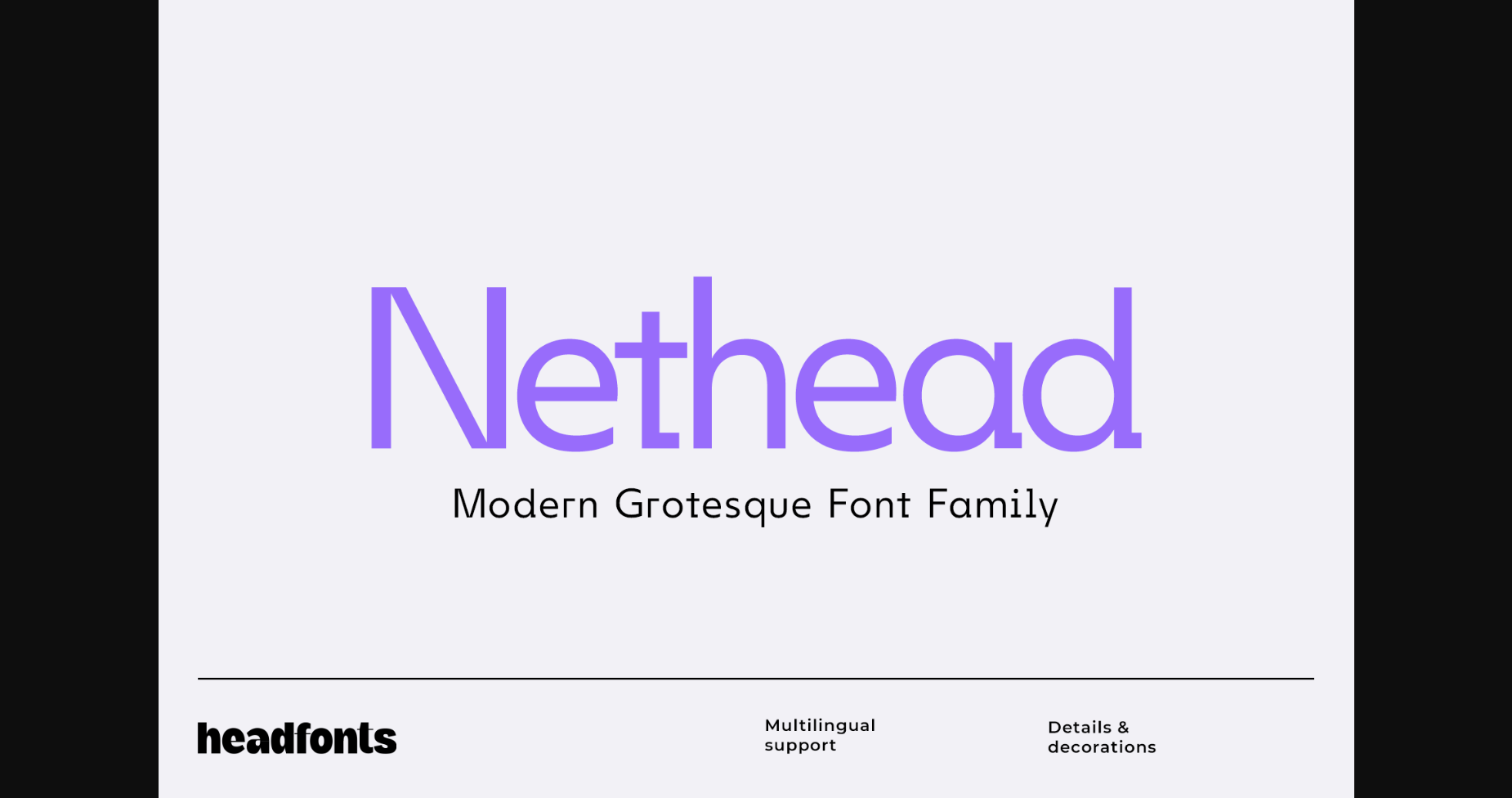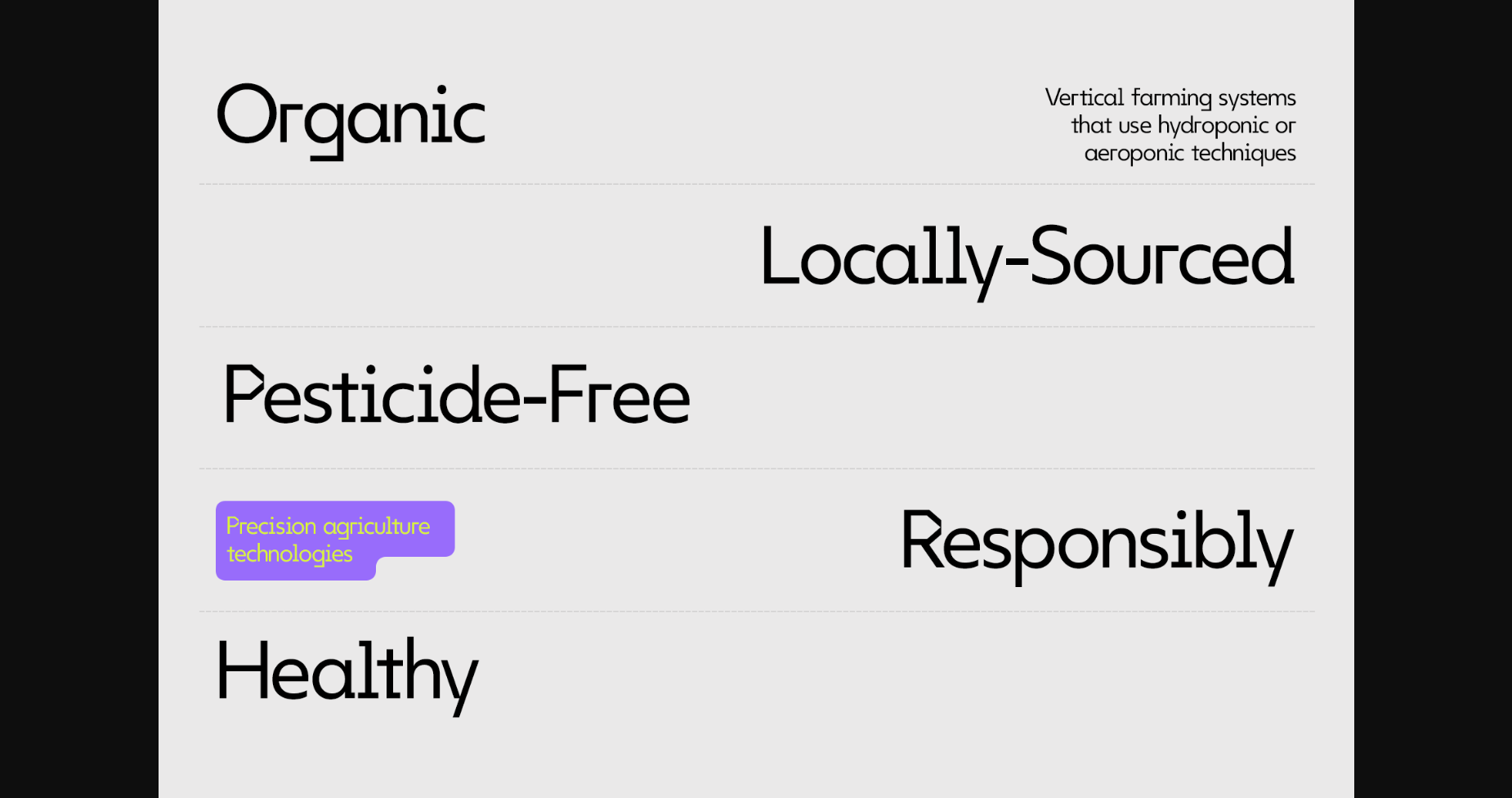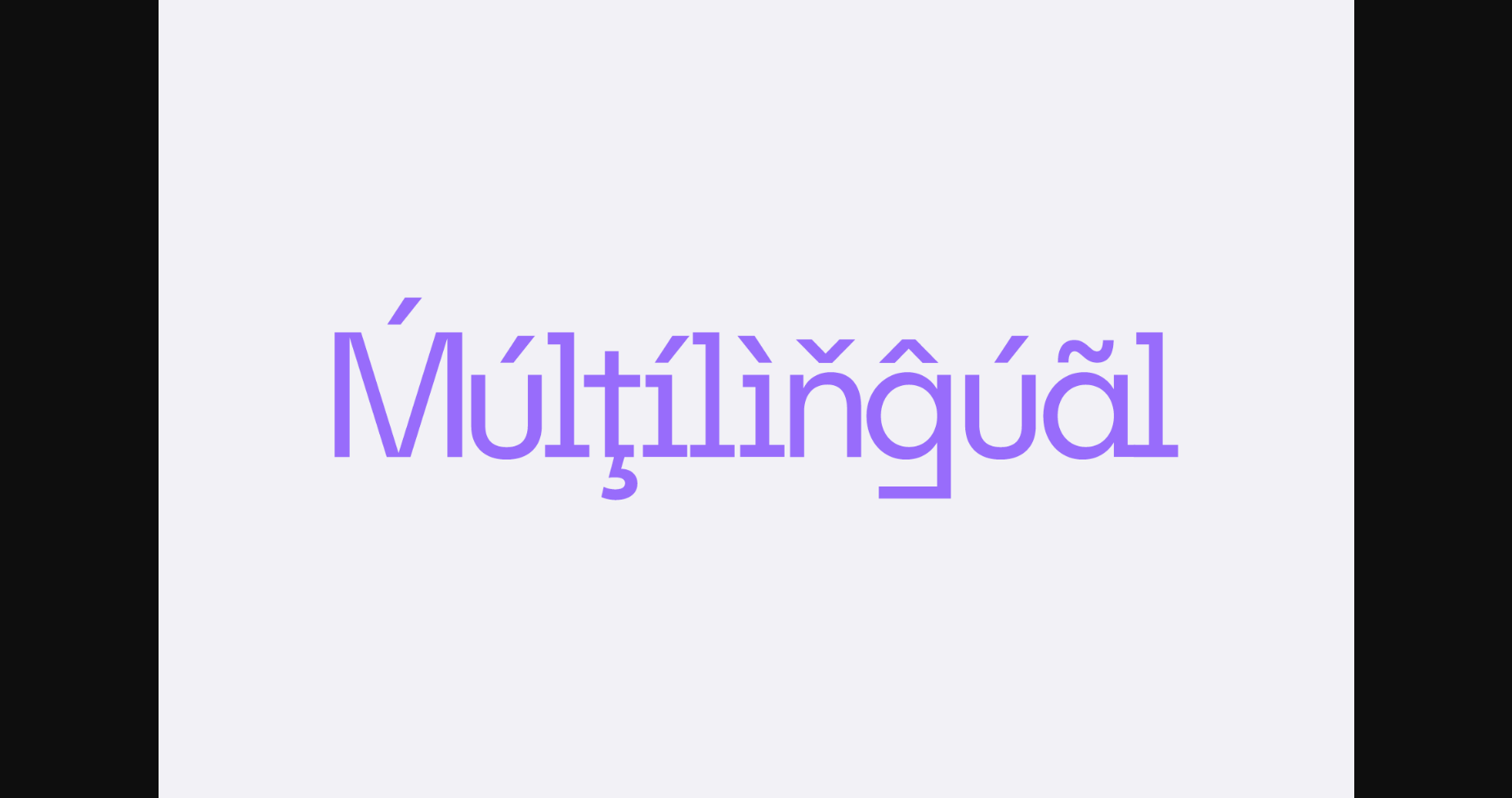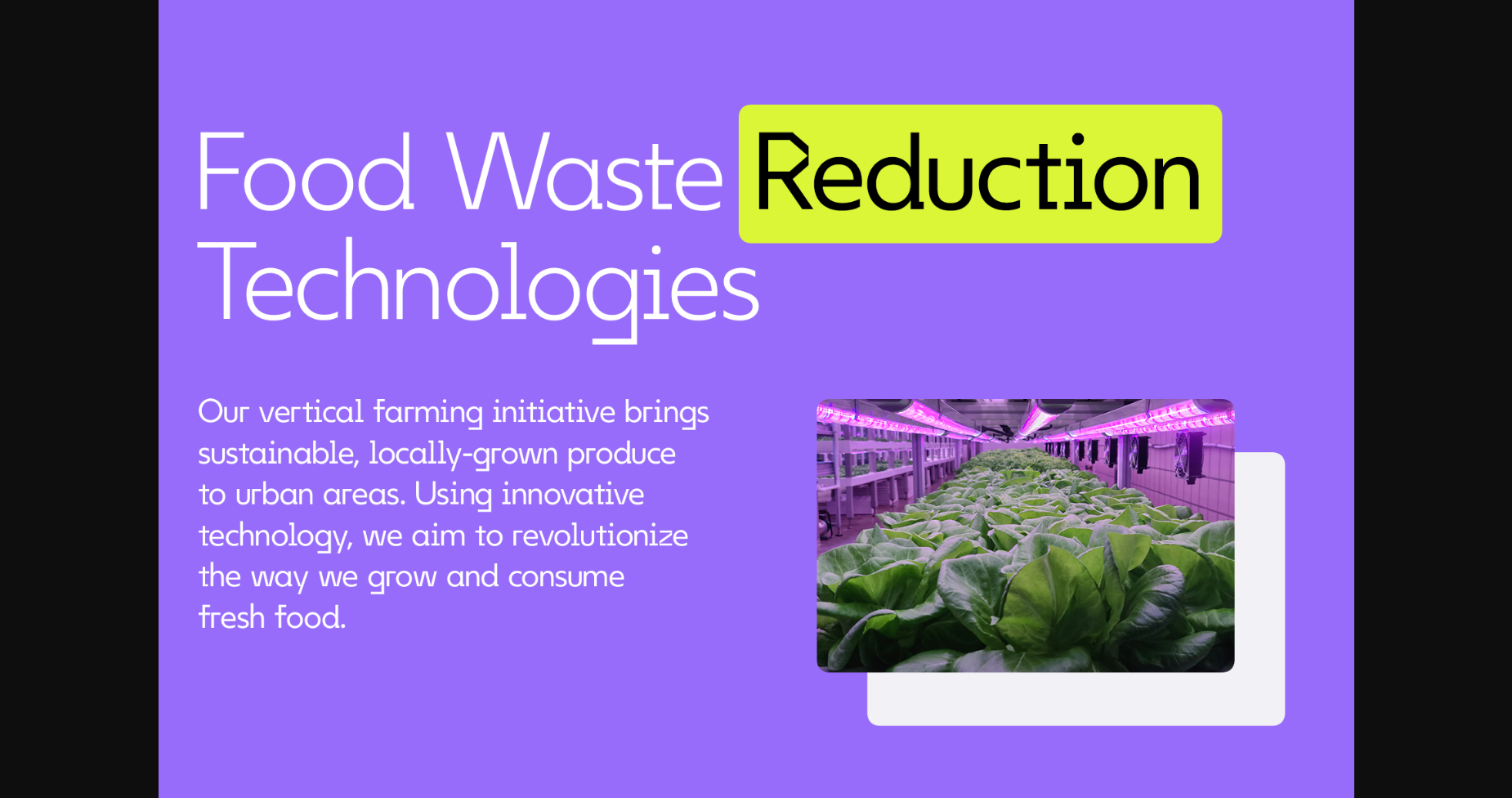
About Nethead Font
We are more than happy to present, NETHEAD, a dynamic sans-serif typeface that will bring your projects to life. Nethead is a modern grotesque font family that comes in three weights – Light, Regular, and Bold.
It’s a vibrant font that exudes personality and adds a touch of uniqueness to any project. Nethead has uppercase and lowercase characters and extensive Latin script support with numerals and symbols. With its geometric elements and nonconformist design, this font is versatile and perfect for technology, sustainability, development, and urban industries.
Choose NETHEAD and take your designs to new heights.